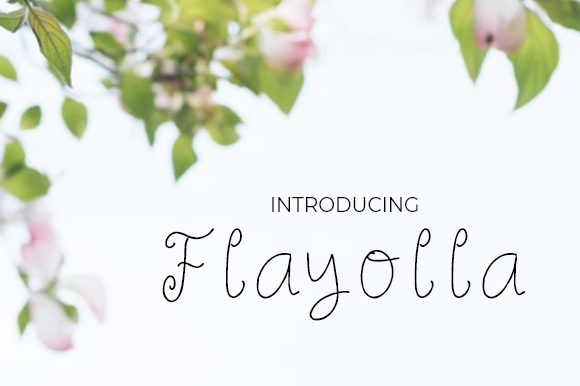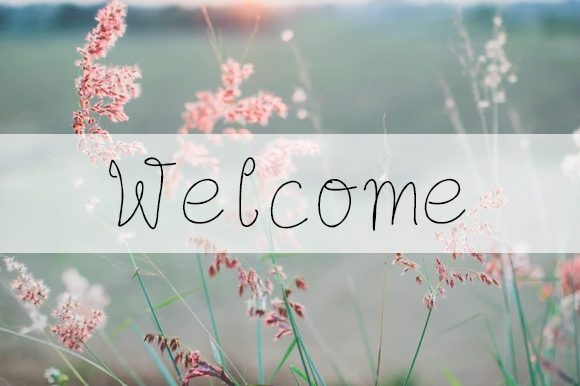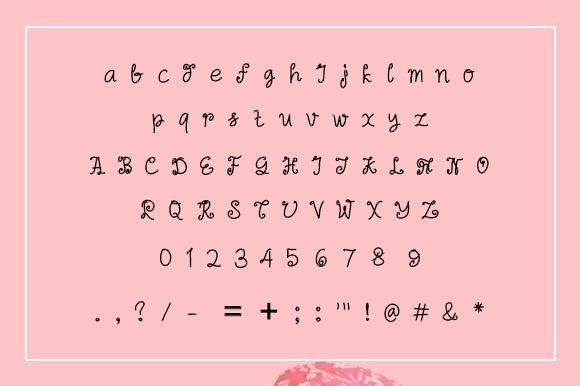
Flayolla Font
About Flayolla Font
Flayolla feels modern and simple. Its casual charm makes it appear wonderfully down-to-earth, readable and, ultimately, incredibly versatile. Flayolla will look outstanding in any context, whether it’s being used on busy backgrounds or as a standalone headline!